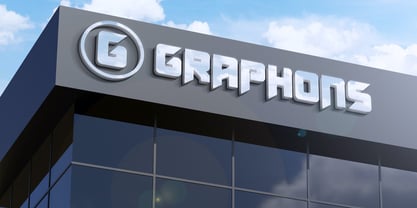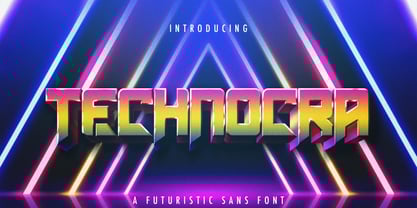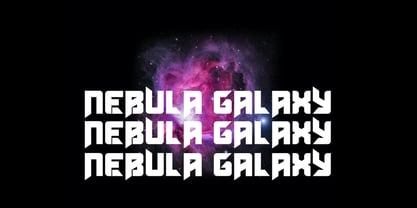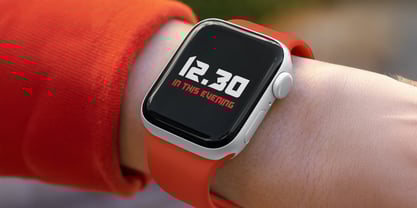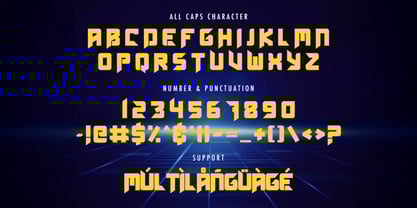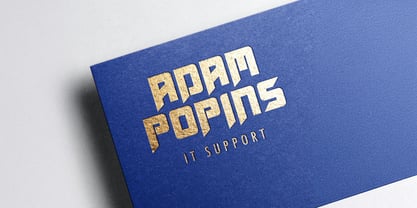
The Technocra Font Family was designed by Virgiawan Listanto and published by Stringlabs Creative Studio. Technocra contains 1 styles. More about this family
Technocra is a cutting-edge futuristic sans font designed for forward-thinking creatives. With clean lines, geometric shapes, and a high-tech aesthetic, this font brings a modern, digital-ready vibe to any project perfect for designs that embrace innovation and minimalism.